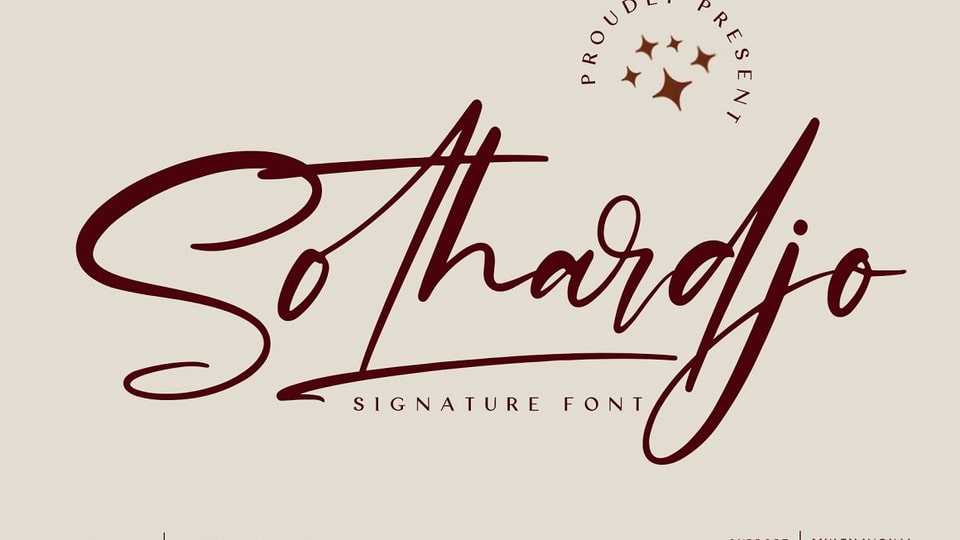
Download Sothardjo font, a delicate, elegant and flowing handwritten font. Sothardjo has beautiful and well balanced characters and as a result, it matches a wide pool of designs.